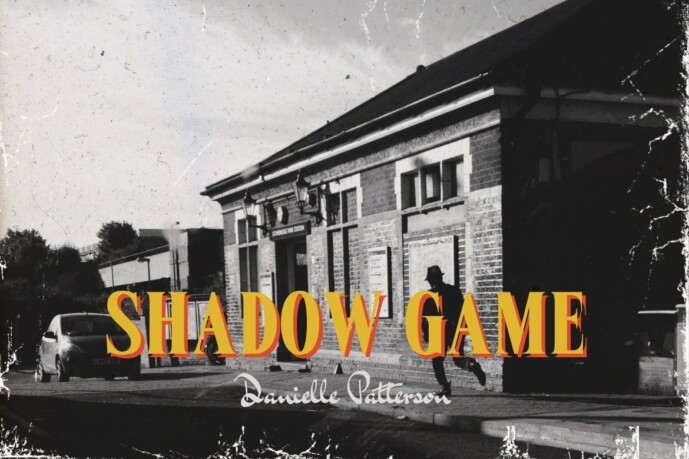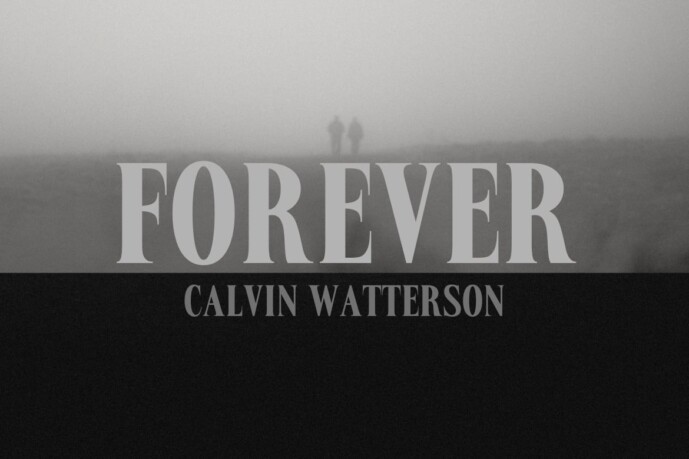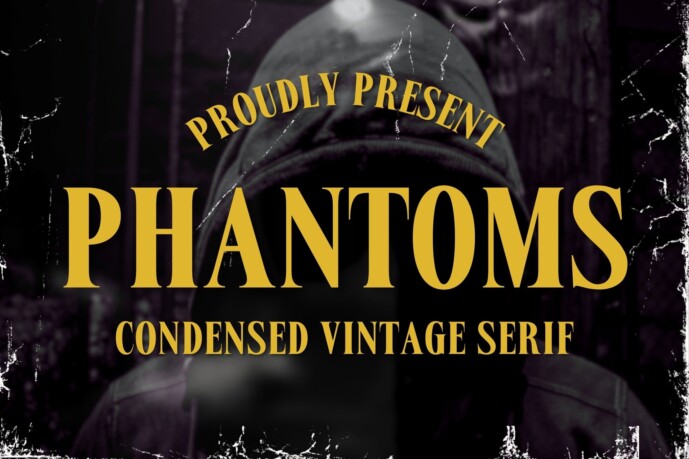
Phantoms Font
Phantoms font, a Condensed Vintage Serif with an elegant style, perfect for branding, logos, invitations, magazines, product packaging and more.